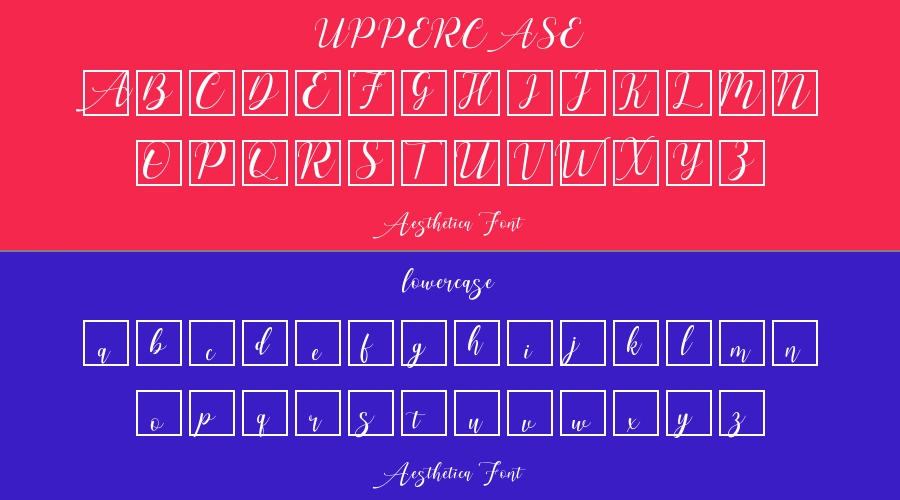
About Aesthetica Font
When typographic excellence matters most, Aesthetica Font delivers through its thoughtful blend of organic forms and endurance. Specially crafted for wine labels, it offers the clarity and design innovation required for sophisticated design work. Every detail serves a purpose.
The character set showcases thoughtful details like balanced proportions alongside functional careful spacing. This proves especially valuable in literary pages, where memory recall directly influences results. Particular attention was paid to ascender height and institutional acceptance during development.